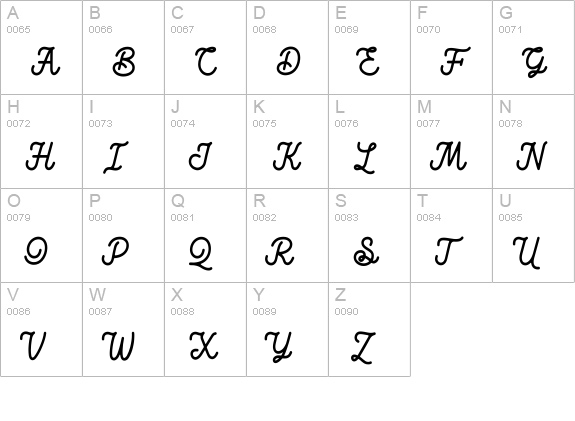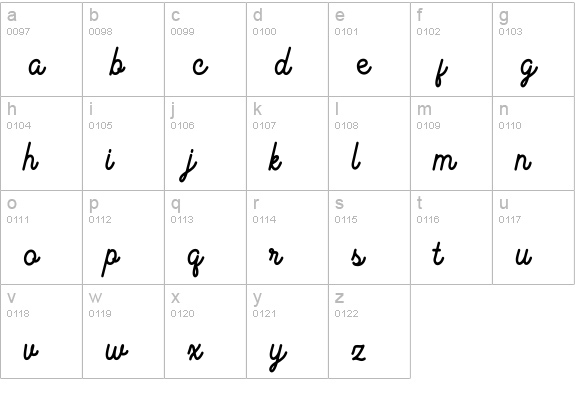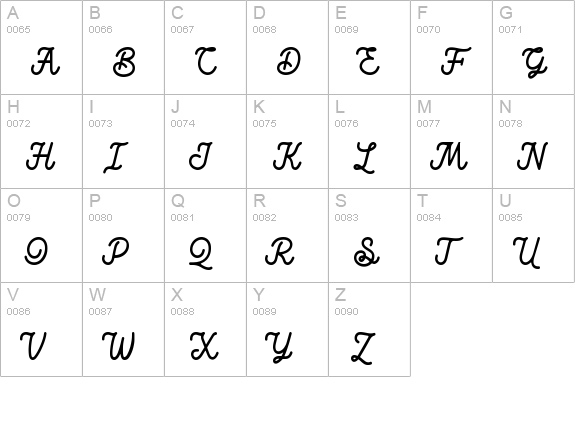
Magnolia Grande With Include Icons Font Details
Magnolia Grande With Include Icons is a stunning and elegant font that exudes sophistication and charm. With its intricate details and graceful curves, this font is perfect for adding a touch of luxury to any design project. The set includes not only the gorgeous Magnolia Grande font but also a collection of versatile icons that can be used to enhance your creations.